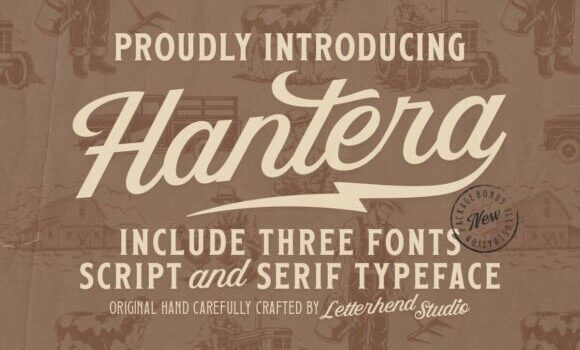
hantera
Hantera Font – Free Download Introduction to Hantera Font Hantera is a vintage-crafted typeface trio that blends elegant script curves with sturdy serif structure, creating a warm old-time charm inspired by classic farm signage and hand-lettered Americana. 📸 Preview Gallery